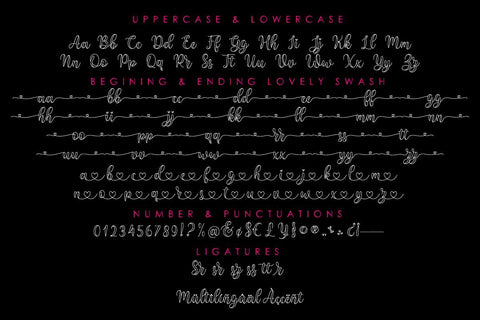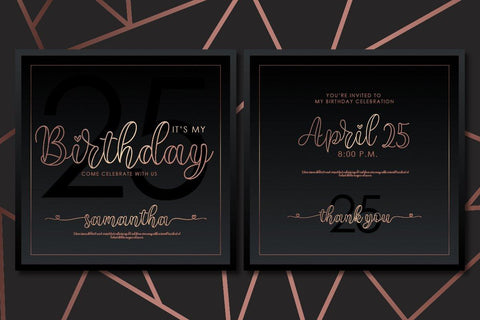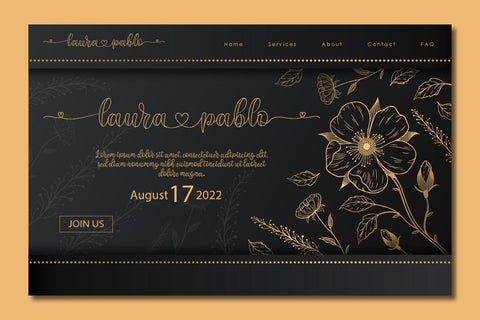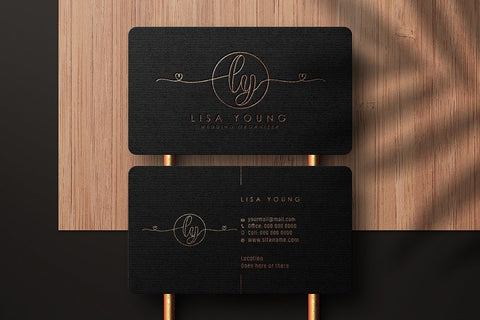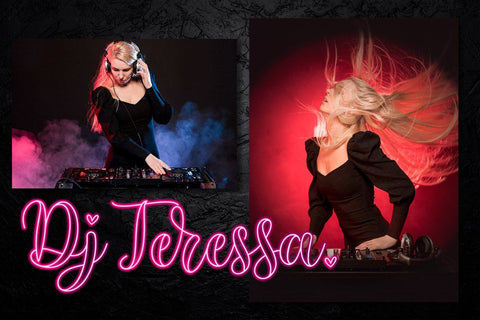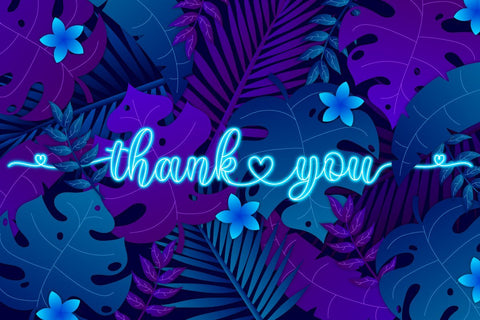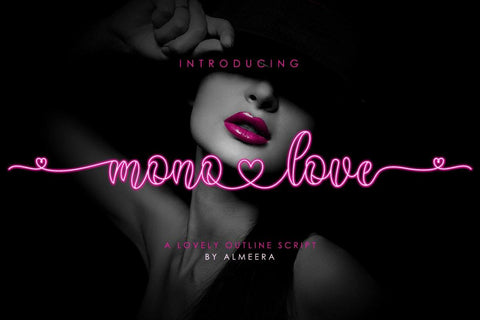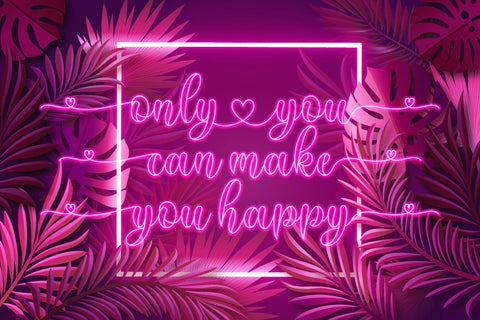
monolove | lovely script
Monolove is a lovely outline script font with heart swash, this font looks natural, elegant and perfect for any extraordinary project.Monolove is suitable for various products such as invitations, product packaging, quotes, product design, crafter, labels, photography, watermarks, logos, brandingand other romantic projects..Everything can be accessed using software that supports Opentype, such as Adobe Indesign, Adobe CS Illustrator, Adobe Photoshop CC, and Corel Draw.